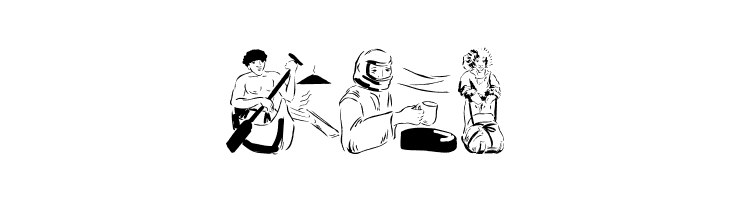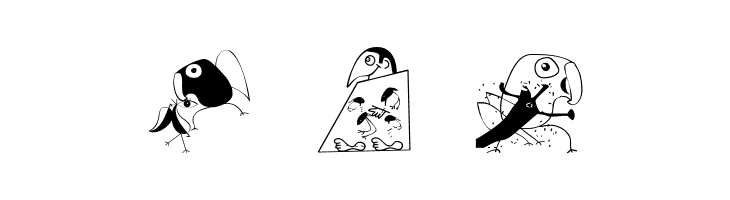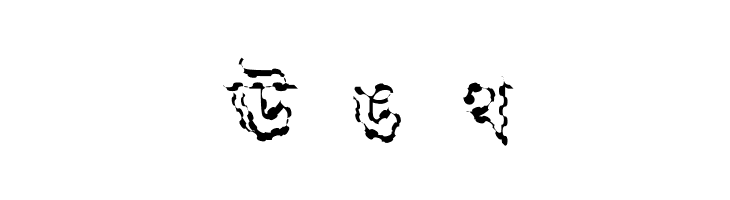
A decorative icon set themed around beer and wine, featuring playful and illustrative graphics.
A playful decorative font featuring unique bird illustrations for each character.
A collection of intricate silhouette illustrations, not a traditional font.
An artistic font with each letter formed by detailed illustrations of people in various activities.
A whimsical and artistic font with playful, cartoon-like characters.
Artistic cow illustrations replace traditional characters, offering a whimsical design element.
An artistic and abstract font featuring unique illustrative characters.
A playful font with animal-themed letterforms, perfect for fun and engaging designs.
A playful, decorative typeface with characters designed as expressive circular faces.
A playful series of fruit and vegetable characters with abstract facial features.
An abstract, decorative font featuring geometric symbols and artistic designs.
A whimsical, abstract font combining typography with artistic doodles.
A dynamic, wavy font with textured, parallel line design.
A collection of abstract, modern art symbols in circular frames.
A playful collection of devilish character illustrations in a cartoonish style.
A decorative font inspired by ancient Mesoamerican art, featuring intricate and bold glyphs.
A decorative font with abstract illustrations and bold, stylized numbers.
An abstract, geometric font inspired by tangram puzzles, featuring bold and angular designs.
Tangram-inspired abstract characters with geometric shapes.
A whimsical and decorative font with playful, cartoonish illustrations.
A decorative collection of book-themed illustrations.
A decorative font featuring African-inspired symbols and illustrations.
A whimsical, hand-drawn font with quirky, cartoonish characters.
A whimsical, decorative font with amoeba-like, abstract characters.
A collection of detailed and imaginative character illustrations with mythical themes.
A whimsical, decorative font featuring nostalgic silhouette scenes.
A whimsical and decorative font featuring cartoonish, creature-like characters.
A whimsical, bird-themed decorative font with playful avian elements.
A whimsical, illustrated font with each letter embedded in unique artwork.
A decorative font featuring detailed illustrations of ancient artifacts and motifs.
A whimsical display font with playful illustrations in each character.